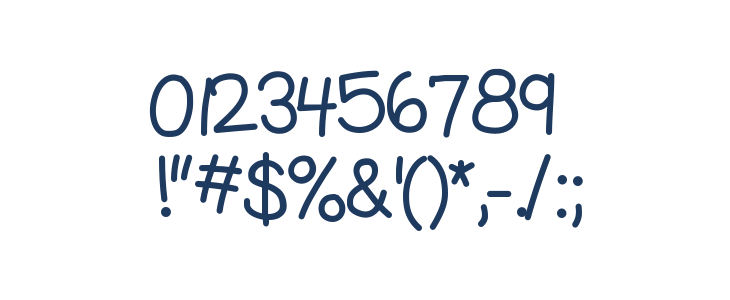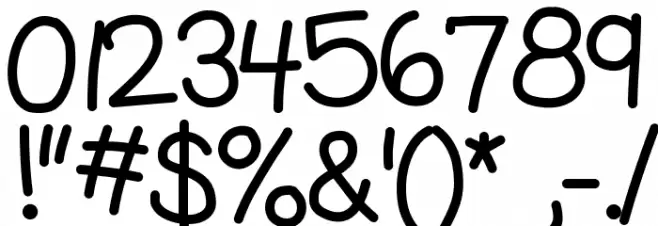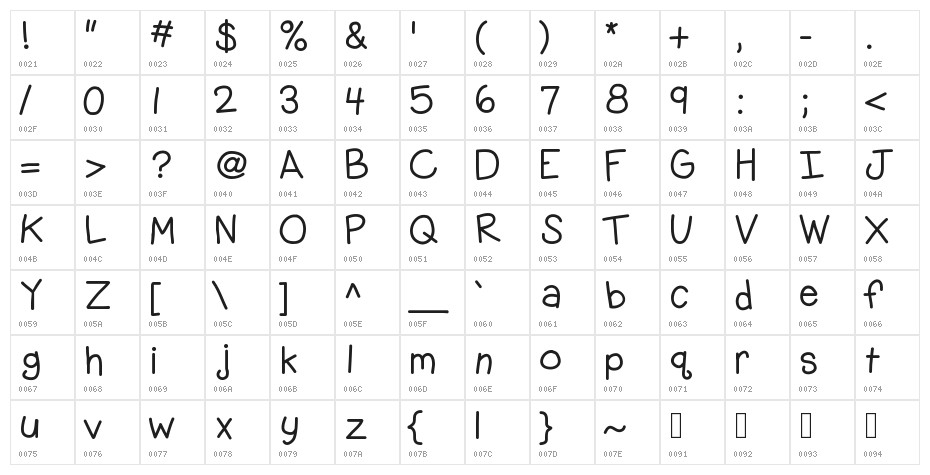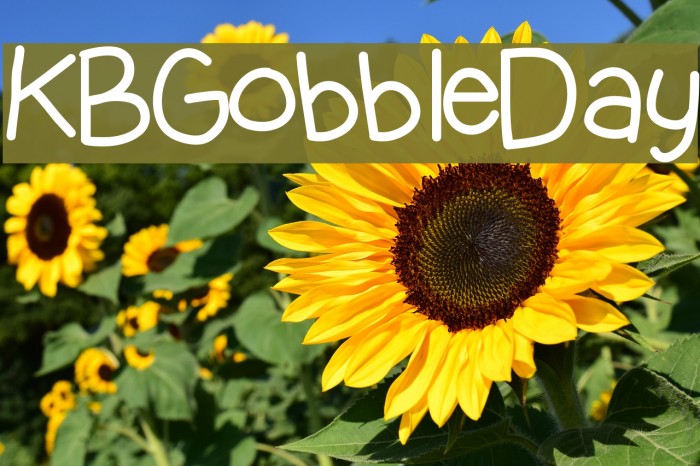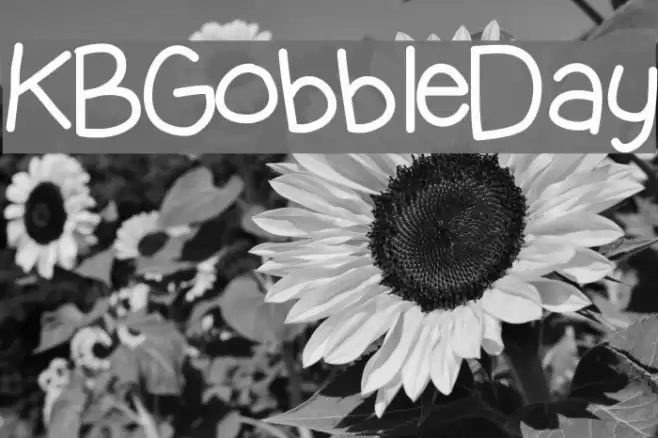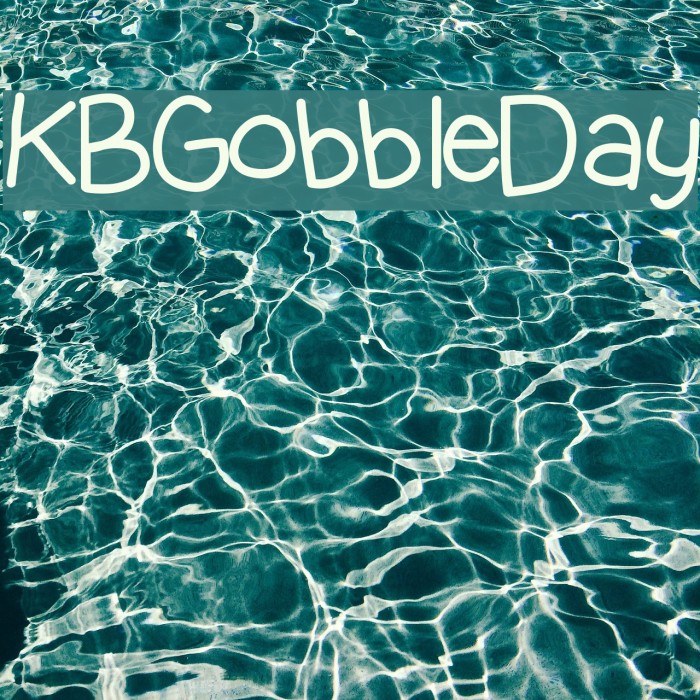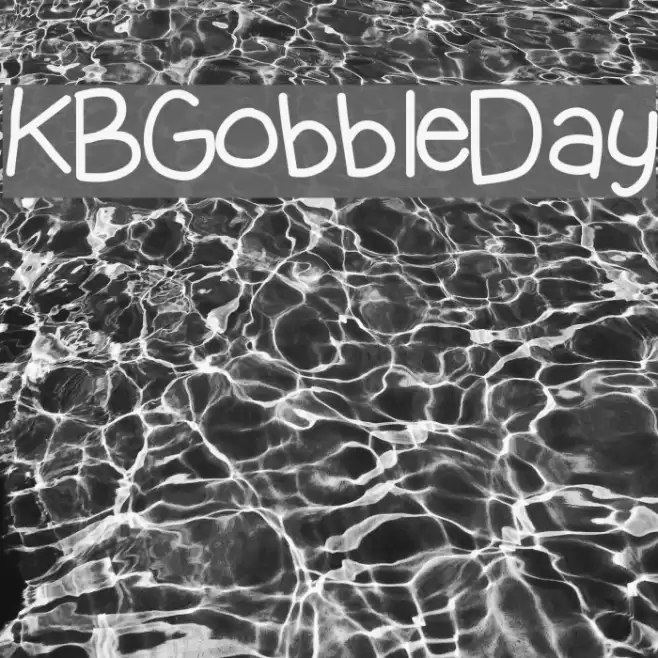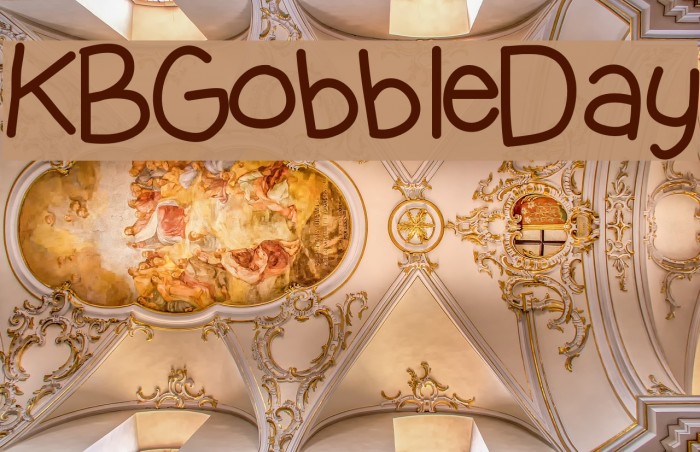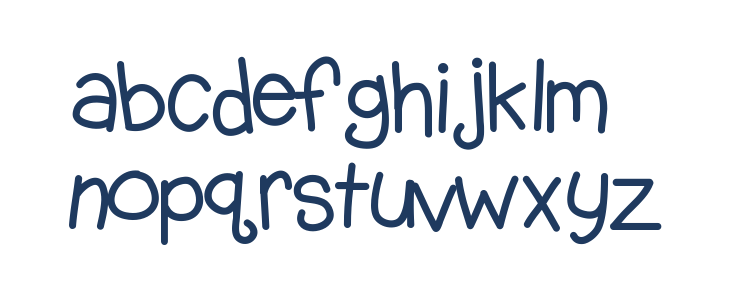
KBGobbleDay Font
KBGobbleDay Description
This playful and whimsical font features a handwritten style with rounded edges and a casual appearance. The characters are slightly irregular, adding a touch of personality and charm. The uppercase and lowercase letters maintain a consistent style, with a smooth flow that mimics natural handwriting. The numerals and special characters are designed to match the overall aesthetic, making the font versatile for various uses. Its informal and friendly look makes it ideal for projects that aim to convey warmth and approachability.
| Use Case | Headlines, Informal text, Branding |
| Proposed Projects | Ideal for children's books, greeting cards, playful branding, and casual invitations. |